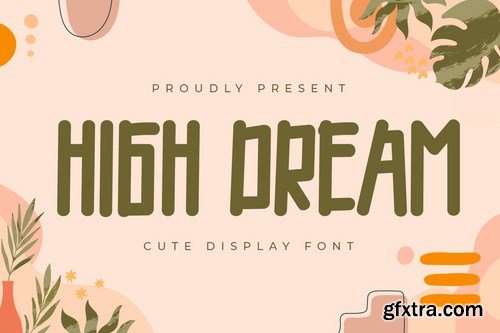
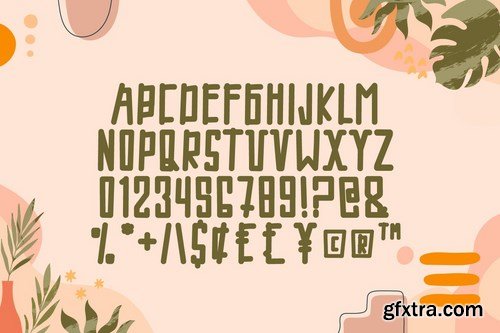
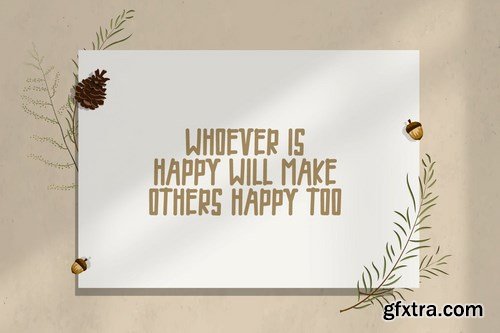
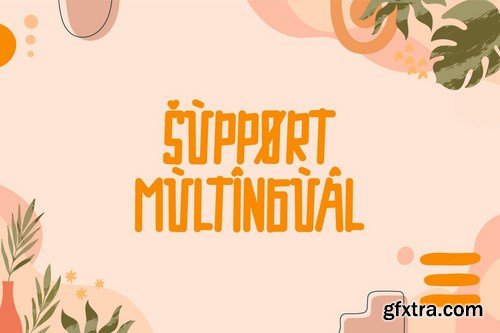
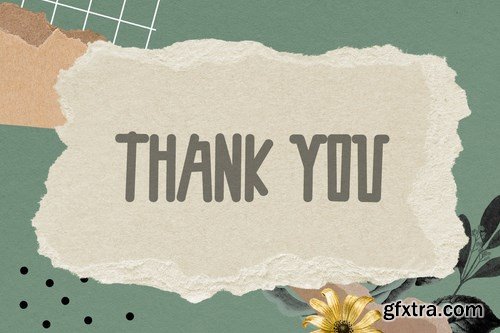
High Dream is a display font that fits perfectly into anything. Its casual charm makes it look very down-to-earth, easy to read, and, in the end, very versatile. Add this beautiful display font to your every creative idea. This font is perfect for quotes, shirt designs, websites, branding, children’s designs, blogs, logos, invitations, and more!
Bread Brown is a unique and interesting display font. Incredibly versatile, this font will fit a wide pool of designs. This font is perfect for quotes, shirt designs, websites, branding, children’s designs, blogs, logos, invitations, and more!
Rafine Font
Rafine is a modern and neat sans serif font. It can easily be matched to an incredibly large set of projects, so add it to your creative ideas and notice how it makes them stand out!
Coffee Home Font
Coffee Home is an elegant script font with a contemporary atmosphere and impeccable form, inspired by timeless classic calligraphy. This font is PUA encoded which means you can access all glyphs and swashes with ease!